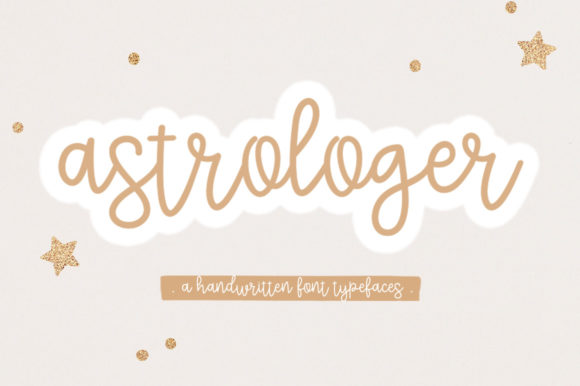
The Astrologer Font: A Stylish and Dainty Script for Your Creative Projects
I’ll never forget the moment I stumbled upon the perfect font for a client’s branding project. I had been searching for hours, trying out different fonts, but none seemed to fit the vibe I was going for. That was until I discovered the Astrologer font. It was love at first sight! The elegant, cursive lines and delicate feel of this font instantly captured the essence of my client’s brand. In this article, I’ll share with you why I’m obsessed with the Astrologer font, its features, and how to make the most of it in your creative projects.
A Personal Review: What I Love About Astrologer Font
Here’s what makes the Astrologer font stand out:
- ✨ Elegant and sophisticated design
- ✅ Highly versatile and suitable for various projects, from logos to social media graphics
- 💫 Delicate and dainty feel that’s perfect for feminine or whimsical brands
- 🎉 Extensive character set, including OpenType features and glyphs
While the Astrologer font is amazing, there are a few things to keep in mind:
- ⚠️ Some characters may not work well in all sizes or resolutions
- 🤔 Limited availability of bold or heavy weights, which may not be suitable for all designs
The Astrologer font was designed with elegance and sophistication in mind. The designer, inspired by ancient astrological symbols and celestial bodies, created a font that’s both beautiful and meaningful. The result is a font that’s perfect for branding, packaging, and any project that needs a touch of luxury.
| What type of projects is the Astrologer font suitable for? | The Astrologer font is versatile and can be used for various projects, such as logos, branding, labels, photography, watermarks, and more. |
| Is the Astrologer font suitable for body text? | While the Astrologer font is beautiful, it’s best suited for headlines, titles, and short paragraphs. For body text, a clearer font may be more readable. |